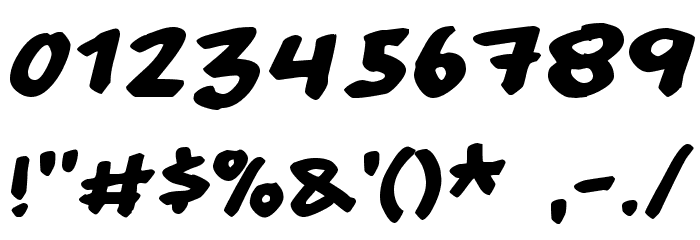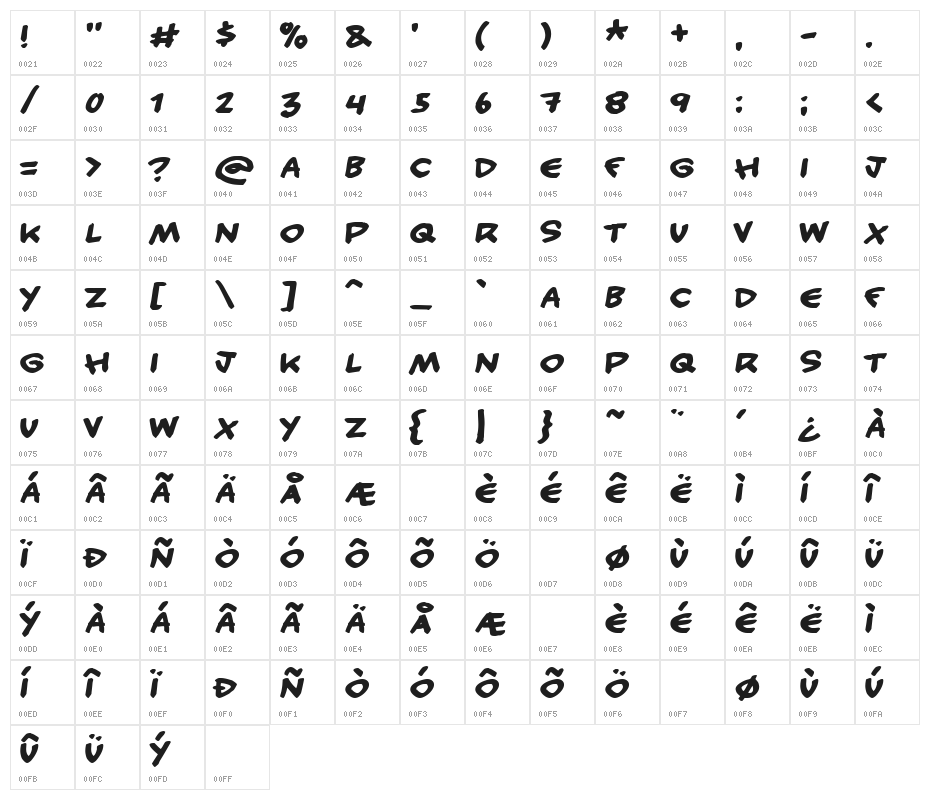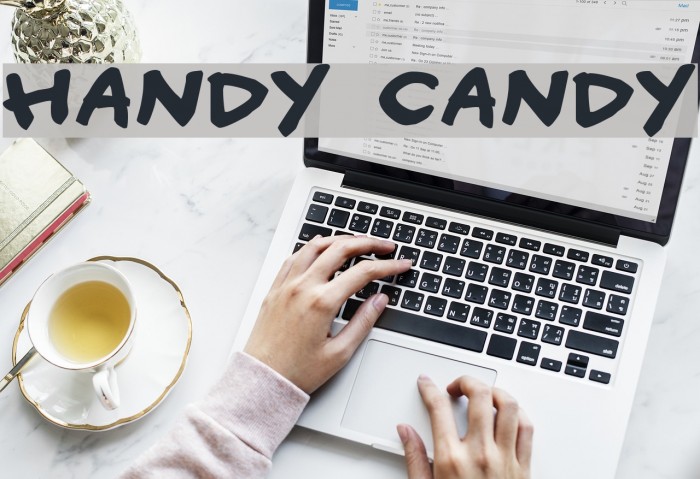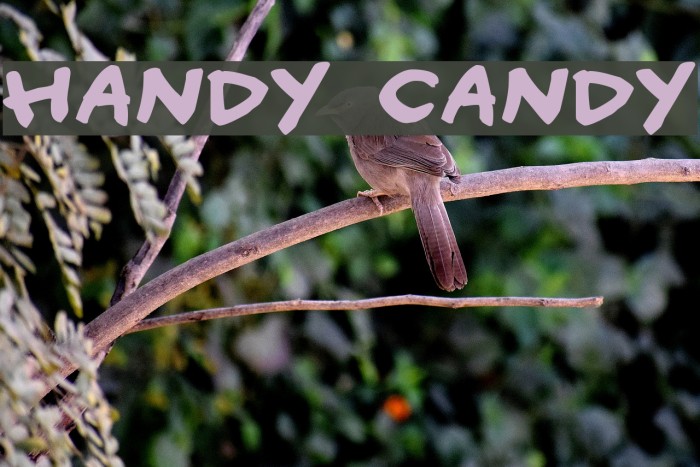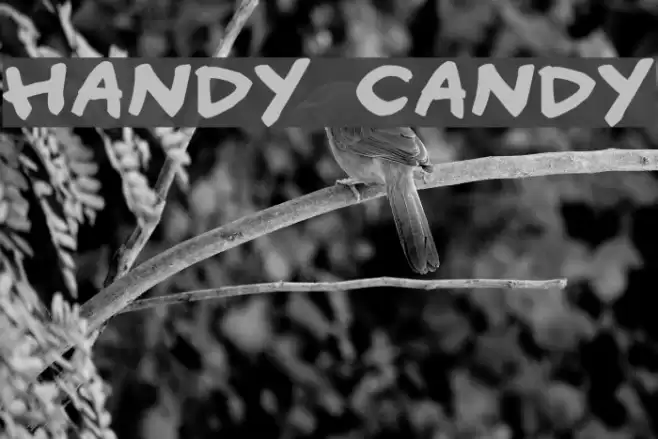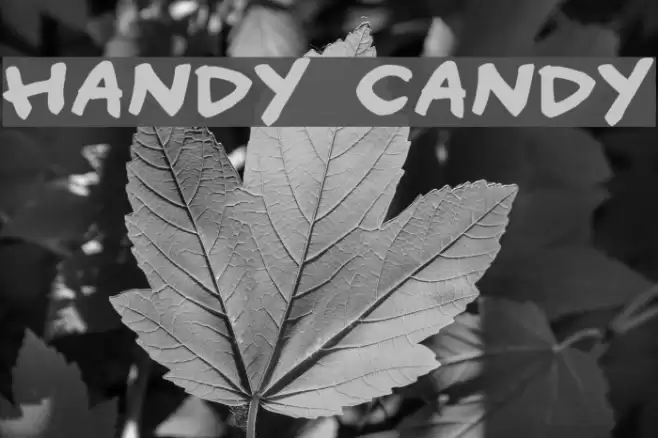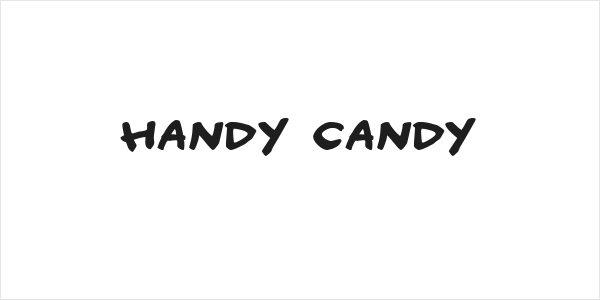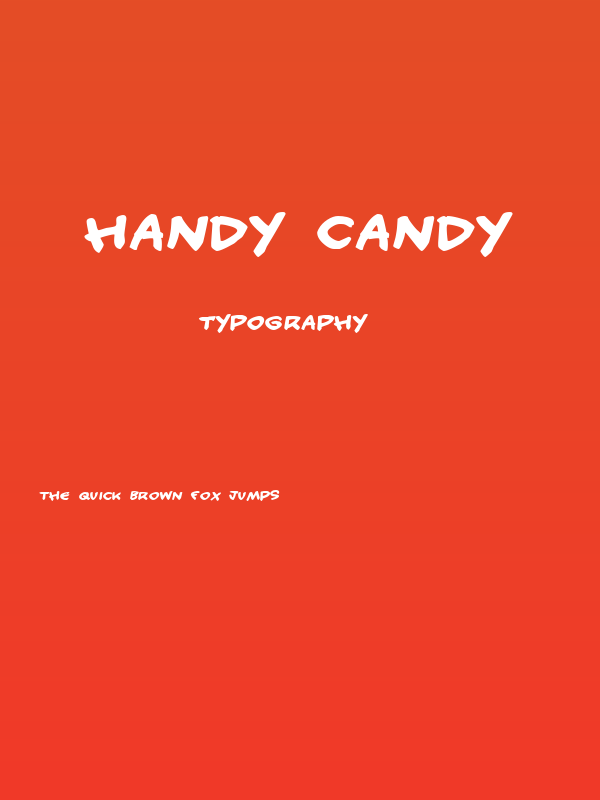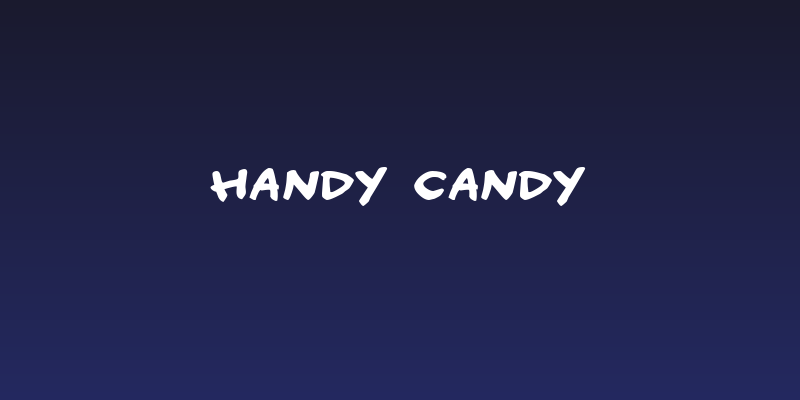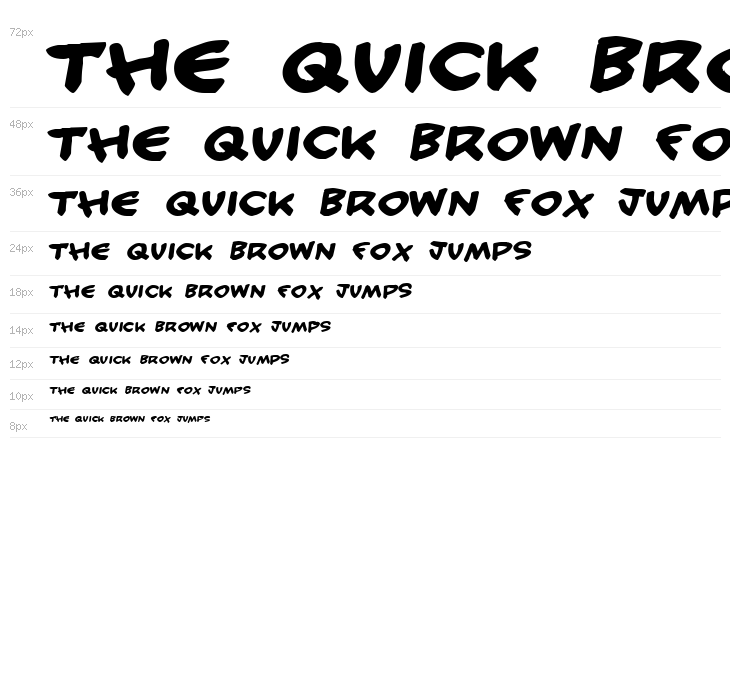
Handy candy Font
Handy candy Description
This font features a playful and bold handwritten style, characterized by its thick, rounded strokes and casual, informal appearance. The letters are slightly slanted, giving a dynamic and energetic feel. The uppercase and lowercase letters maintain a consistent style, with smooth curves and a slightly irregular baseline that adds to its charm. The numbers and special characters are equally expressive, making this font suitable for creative and fun projects. Its bold presence ensures readability while maintaining a unique and artistic flair.
| Overall Style | Playful, Casual |